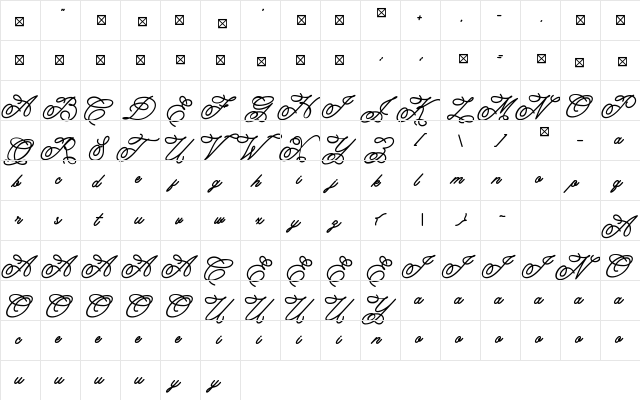
Bratayudha Regular Font Preview
Bratayudha Regular
Bratayudha Regular Font Details
| Foundry | Yunita Ecy |
| Designer | Yesie Erma Yunita |
Design Context for Bratayudha Typeface
Bratayudha is a composed and adaptable typeface that performs quietly and consistently across a wide range of design contexts.